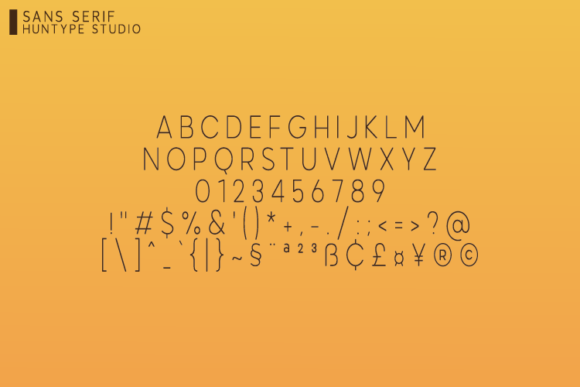
The Designer’s Delight: Uncovering the Charm of Francent Font
I’ll never forget the time I was working on a project for a client who wanted a clean and modern look. I had spent hours scouring the internet for the perfect font, but nothing seemed quite right. That was until I stumbled upon Francent Font. Its simple, sans-serif design and undeniably clean feel immediately caught my eye. I knew right then and there that it was the perfect fit for my project.
A Personal Review: The Good, the Great, and the Quirks
What I Love About Francent Font
- ✨ Clean and Simple Design: Francent Font boasts a neat and beautiful arrangement of letters, making it perfect for both formal and non-formal designs.
- ✅ Versatility: This typeface can be used for a wide range of projects, from brochures and posters to digital media and websites.
- 💡 Easy to Read: The font’s clear and concise design makes it easy to read, even at smaller sizes.
While Francent Font is an excellent choice for many projects, it’s not without its quirks. For example:
- 🤔 Limited Embellishments: Francent Font is a straightforward, sans-serif font, which means it may not be the best choice for projects that require a lot of embellishments or ornate details.
- ⚠️ Not Suitable for Body Text: While Francent Font is easy to read, its clean and simple design may not be the best choice for long blocks of body text.
The Story Behind Francent Font
Francent Font was designed with the goal of creating a clean and simple sans-serif font that could be used for a wide range of projects. The designer drew inspiration from modern typography trends and aimed to create a font that was both elegant and approachable.
| Author | Huntype |
Q: What type of projects is Francent Font best suited for?
A: Francent Font is a versatile font that can be used for a wide range of projects, including brochures, posters, digital media, and websites.
Q: Can I use Francent Font for body text?
A: While Francent Font is easy to read, its clean and simple design may not be the best choice for long blocks of body text.
Q: Does Francent Font support OpenType features?
A: Yes, Francent Font supports OpenType features, including glyphs and stylistic alternates.